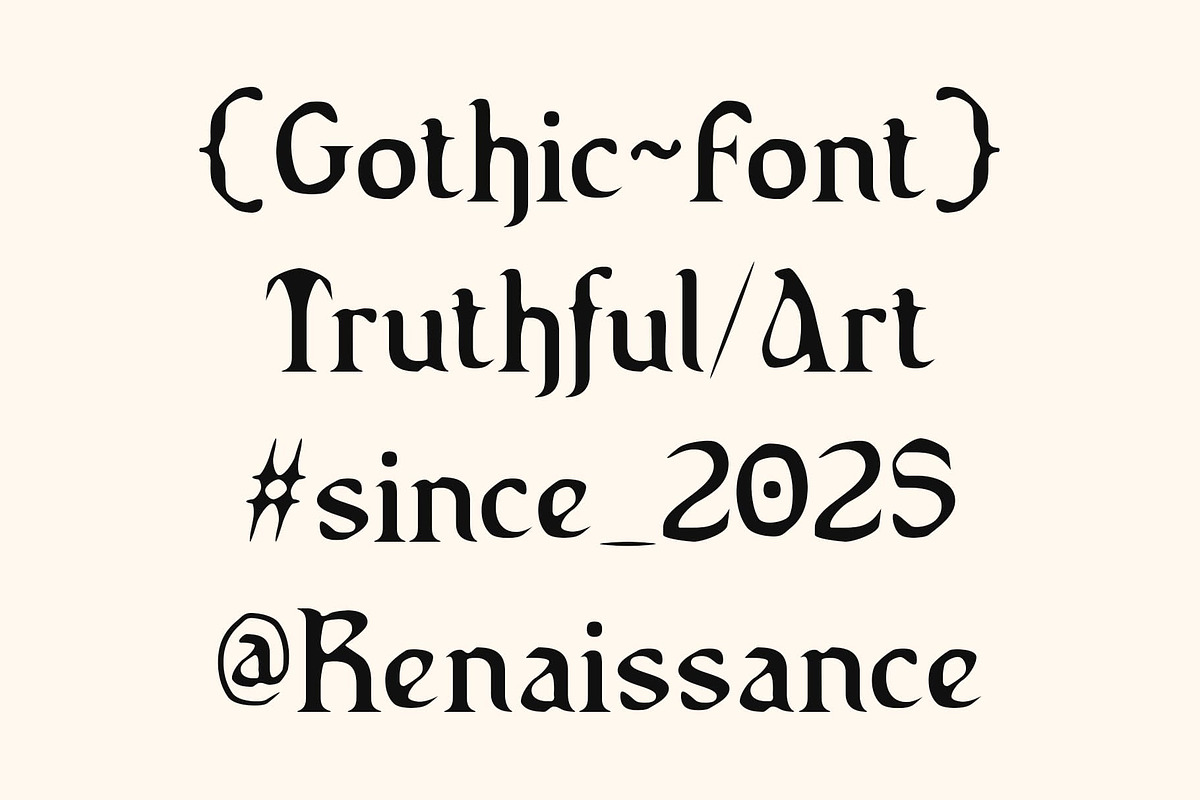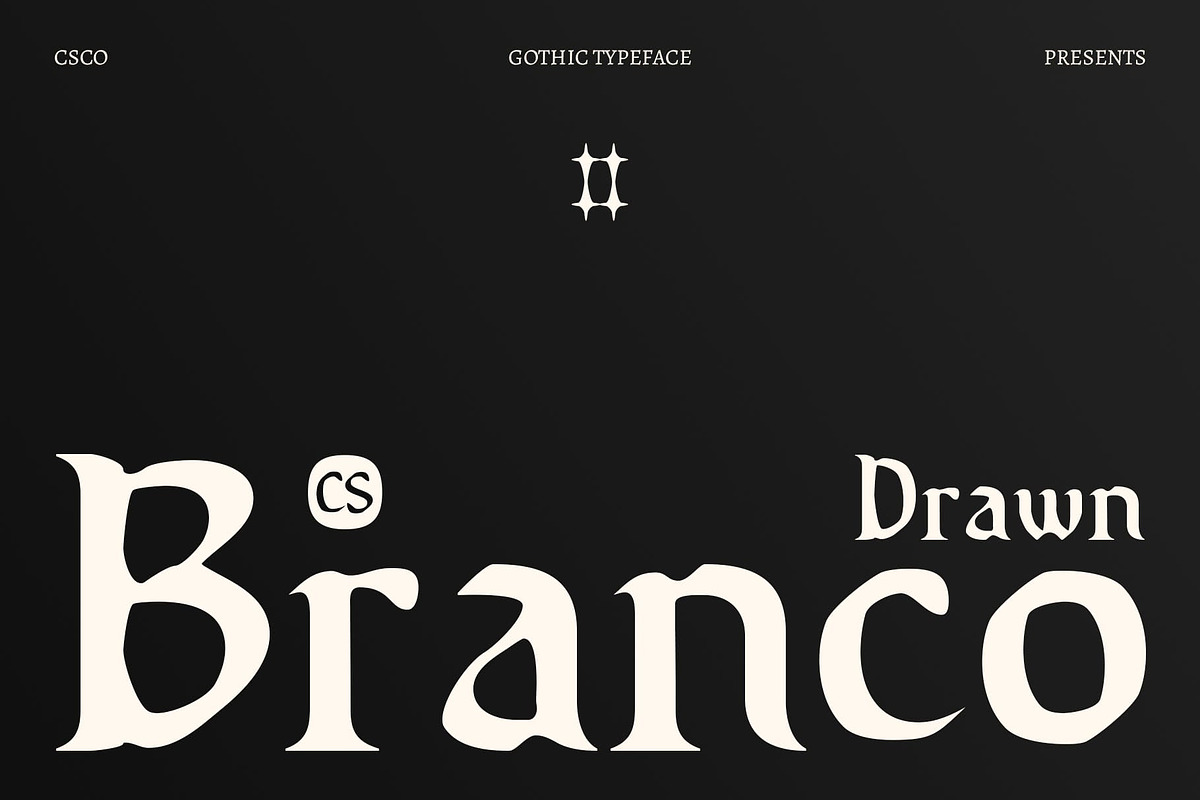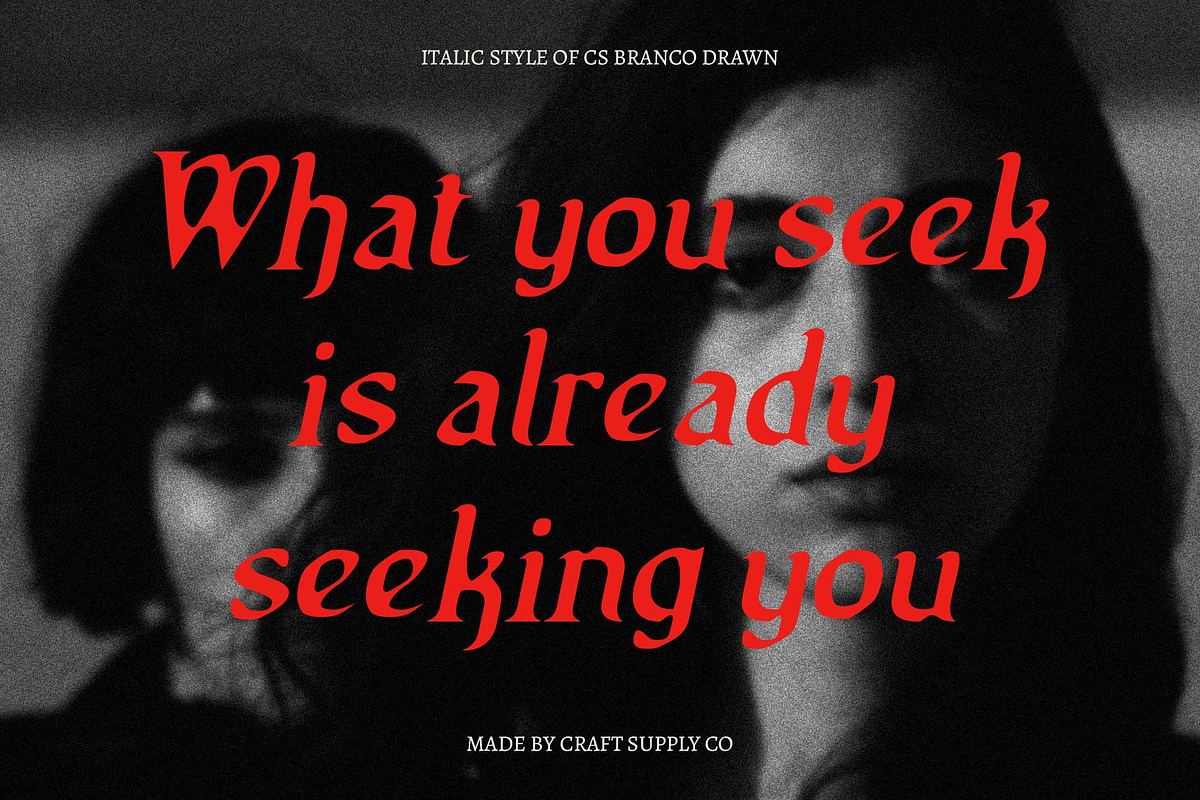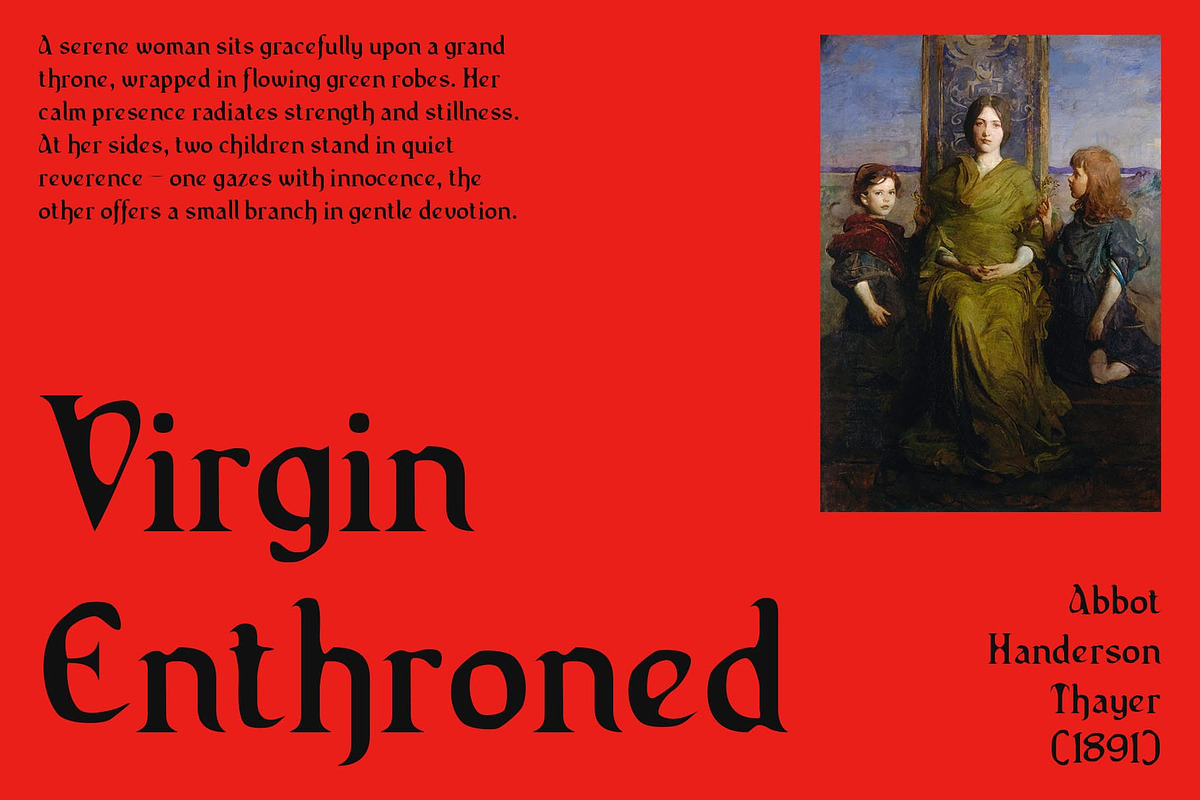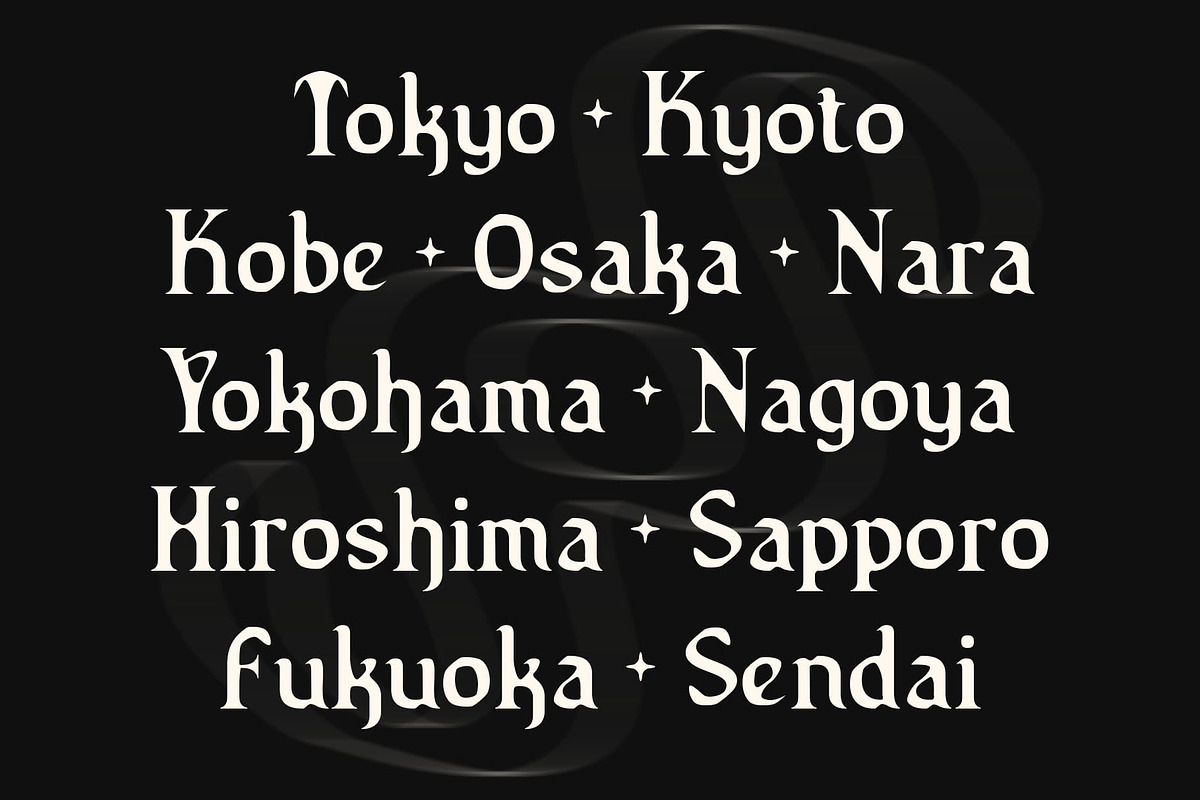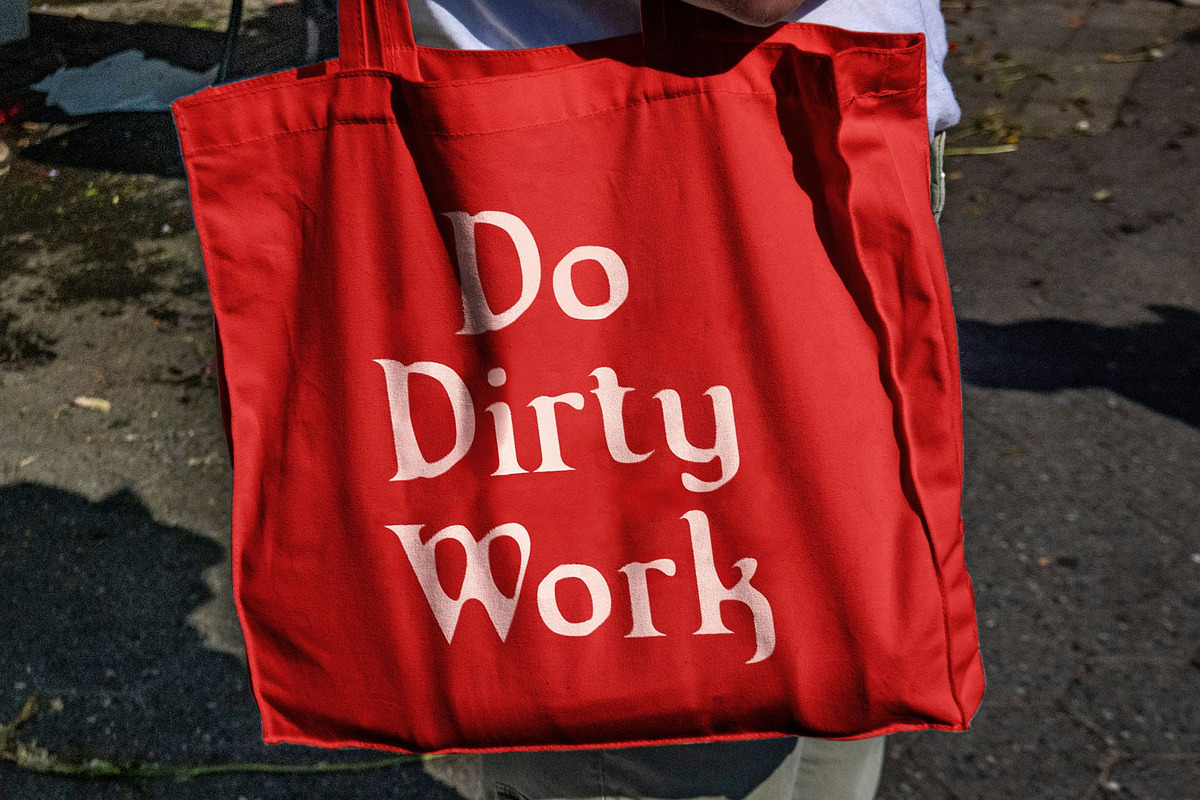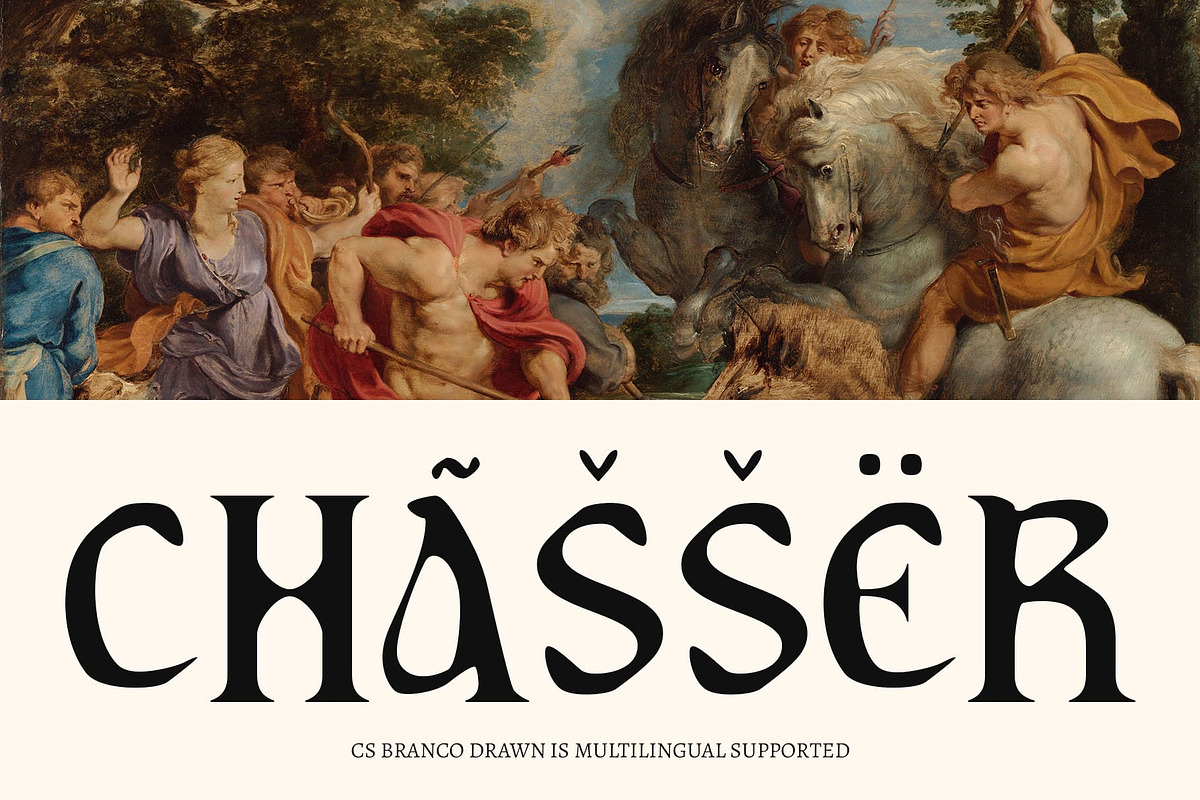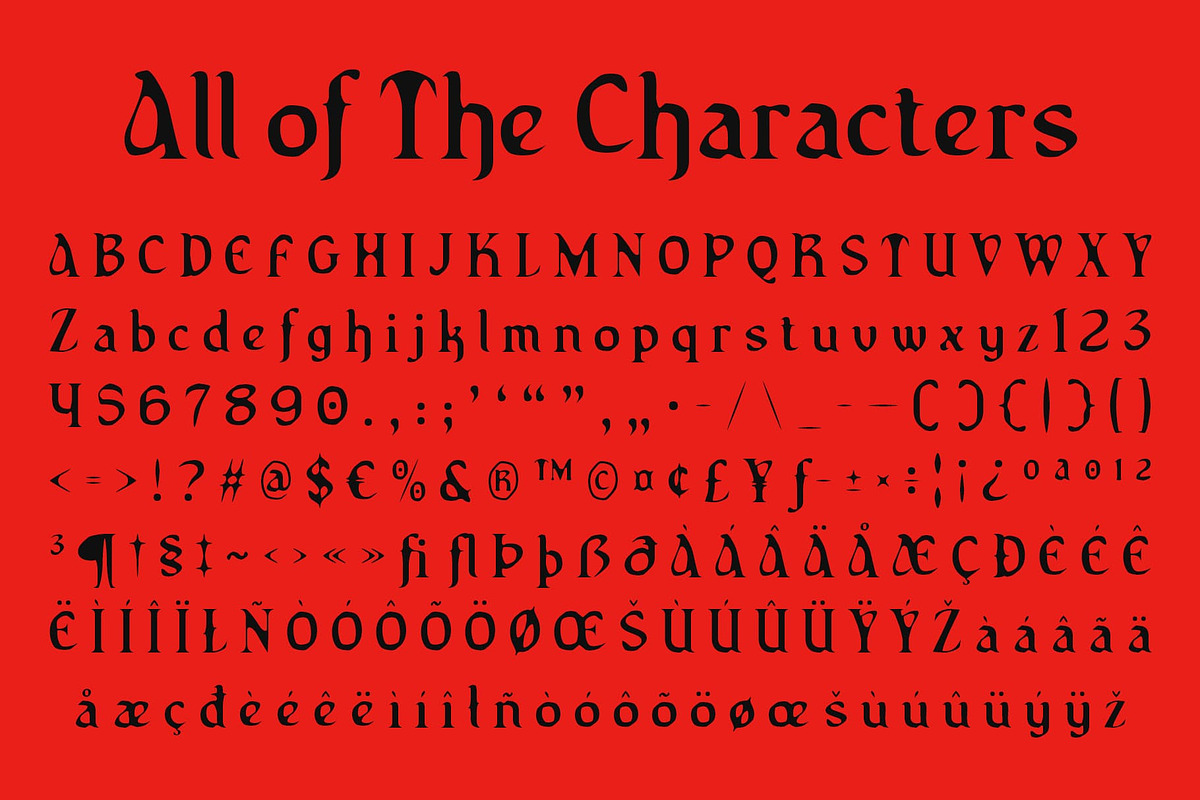
CS Branco Drawn
CS Branco Drawn – Bold Gothic Elegance with a Handcrafted Edge
Modern Serif with Gothic Boldness CS Branco Drawn is a modern display serif font infused with a distinctive contemporary gothic style. Its bold lines and sharp, dramatic serifs create a strong, confident presence that immediately commands attention. The overall structure blends the elegance of serif design with a darker, edgier tone—perfect for modern creatives looking to add depth and drama.
Hand-Drawn Texture for Artistic Character Enhanced by a drawn effect, this artistic font brings a handcrafted quality that adds richness and visual texture to its already expressive form. The subtle imperfections of the drawn details make each letter feel alive, adding raw emotion and individuality to your designs.
Striking and Full of Personality This font is designed to make a statement. With its gothic-inspired structure and artistic finish, this mysterious font is ideal for projects that aim to appear bold, moody, and full of character. It offers the perfect balance between refinement and rebellion.
Perfect for Dark Branding, Art Posters, and Experimental Design Whether you’re crafting a music poster, branding a fashion label, or designing a concept-driven editorial, this expressive font brings a visually intense and distinctive voice. It’s especially suited for dark aesthetics, expressive compositions, and designs that seek to stand out with attitude and authenticity.